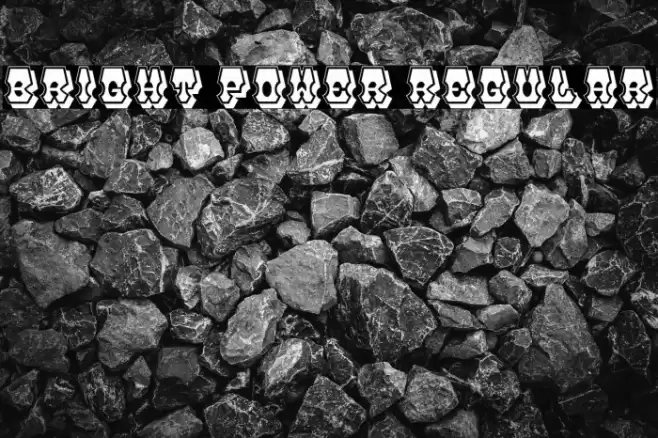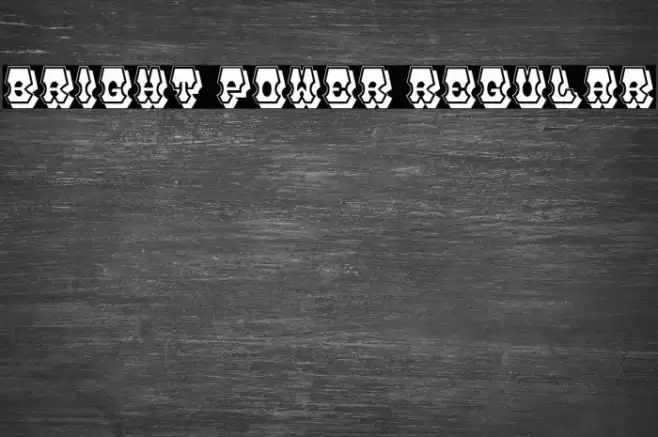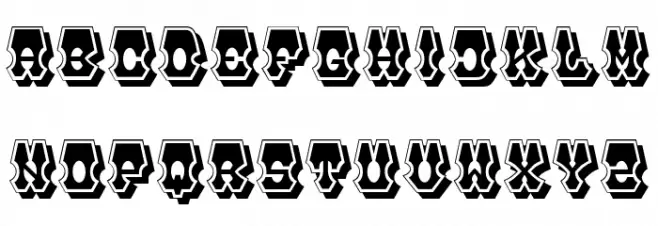
Bright Power Regular Font
Bright Power Regular Description
This font features a bold and striking design with a three-dimensional effect, giving it a powerful and dynamic appearance. The characters are heavily stylized with thick, angular lines and a shadow effect that adds depth. The geometric shapes and sharp edges create a futuristic and edgy look, making it ideal for attention-grabbing designs. The uppercase and lowercase letters maintain a consistent style, while the numbers and special characters are equally bold and impactful. This font is perfect for projects that require a strong visual presence.
A bold, three-dimensional font with a dynamic and futuristic style from Uncategorized fonts.
- Proposed Projects: Ideal for posters, logos, video game graphics, and any project needing a bold, eye-catching typeface.